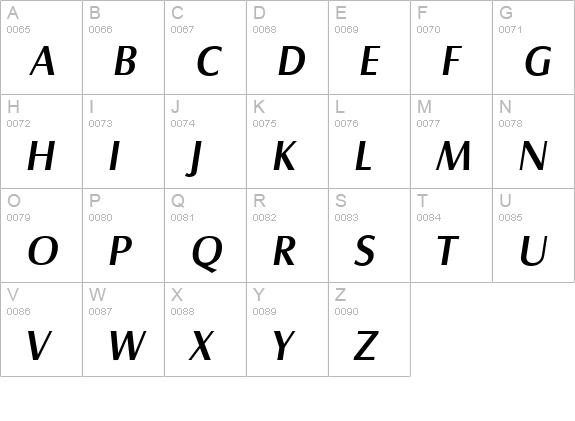
SalzburgSerial-Medium-Italic is a balanced, medium-weight, italic variant in the SalzburgSerial typeface family \xE2\x80\x94 well suited to sub-headlines, navigation, and balanced editorial work.
Introducing SalzburgSerial-Medium-Italic font, a beautifully crafted typeface that strikes the perfect balance between elegance and readability. With its refined curves and distinctive italic style, this font exudes a sense of sophistication and modernity. Ideal for adding a touch of class to your projects, SalzburgSerial-Medium-Italic font is versatile and eye-catching, making it perfect for a wide range of design applications. Whether you're working on branding, editorial design, or web projects, this font is sure to make a statement. The best part? SalzburgSerial-Medium-Italic font is available for free download at FontsMarket.com. Now you can enhance your designs with this premium font without breaking the bank. Don't miss out on this opportunity to elevate your work with the timeless charm of SalzburgSerial-Medium-Italic font. Download it today and let your creativity shine!